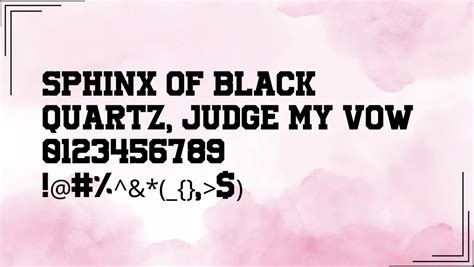
Hey guys! Are you on the hunt for a super versatile and classic font? Look no further! The University Regular font is a fantastic choice, and the best part? You can often find a free download ! This guide will walk you through everything you need to know about this popular font, including where to download it safely, how to use it, and some cool tips and tricks to make your designs pop. So, let’s dive in and explore the world of the University Regular font!
What is the University Regular Font?
First things first, what exactly is the University Regular font ? It’s a clean, legible, and slightly condensed sans-serif font. Think of it as your trusty sidekick for all sorts of projects! It’s got a timeless feel, making it perfect for both modern and classic designs. Originally designed for readability, the University Regular font has become a favorite among designers and regular folks alike, and it’s perfect for a wide array of uses, from official documents to creative design projects. This font family typically includes a variety of weights, but the University Regular is the standard, foundational version. It’s the go-to weight for body text, headings, and anything that needs to be easily read. It’s got a straightforward, no-nonsense vibe, making it super versatile. You can use it in a ton of different contexts, and it’ll always look good.
Characteristics and Features
The University Regular font boasts several key characteristics that make it stand out. Firstly, its excellent readability is a major plus. The letterforms are designed to be clear and distinct, even at smaller sizes. This means you can use it for lengthy paragraphs or detailed information without causing eye strain. Secondly, its versatility is a huge advantage. Because of its clean and neutral aesthetic, it can be applied to a variety of design styles. Whether you’re working on a website, a poster, a brochure, or even a presentation, the University Regular font will adapt and enhance your design. It’s a bit like a chameleon, blending seamlessly into the background while still delivering your message in a clear and effective way. The font’s professional appearance makes it a popular choice for academic and business settings. It conveys a sense of trustworthiness and reliability, making it perfect for official documents, reports, and presentations. However, the University Regular font is not just for serious work; it can also be used in creative projects like logos, branding, and website design to achieve a modern and appealing look. Its legibility across different media is another great feature. Because the font is clear and well-defined, it looks good on both print and digital platforms. This makes it easier to work with a range of design projects without having to constantly adjust. The combination of its clean lines, good legibility, and professional appearance makes the University Regular font a highly sought-after resource for both professional designers and amateur enthusiasts.
Why Choose University Regular?
So, why would you choose the University Regular font over the countless other fonts out there? There are several compelling reasons. The most obvious is its simplicity and clarity . In a world of over-the-top fonts, the University Regular font offers a refreshing dose of straightforwardness. It’s easy on the eyes and helps your message shine through without distraction. The font’s neutrality allows it to complement any design style or theme. Versatility is another massive plus. You can use it for everything from body text to headlines, in both digital and print media. This adaptability saves you time and effort since you won’t have to switch fonts constantly. Furthermore, its widespread availability means it’s super easy to find and use. As a popular font, it often comes pre-installed on many devices and operating systems, making it accessible to anyone. However, you can also easily find it as a free download . Choosing this font will help you maintain a consistent brand identity across all your marketing materials. By using the same font across all platforms, you create a cohesive and recognizable look that helps build brand recognition. Finally, the University Regular font provides a sense of professionalism that works well in both personal and business settings. Whether you are creating a simple flyer, a report, or website design, the font will communicate your ideas with elegance and simplicity. The clean and crisp appearance of the font helps you to emphasize content. Overall, the combination of its readability, versatility, and free availability makes the University Regular font an excellent choice for a wide array of projects.
Conclusion: University Regular Font – Your Go-To Choice
So there you have it, folks! The University Regular font is a fantastic choice for any project. Whether you are looking for a free download for personal use or a font that provides a professional look, it is a great choice. Its clean design, readability, and versatility make it a winner. Now you’re ready to download, install, and start using this awesome font in your designs. Happy designing, and enjoy your new font!